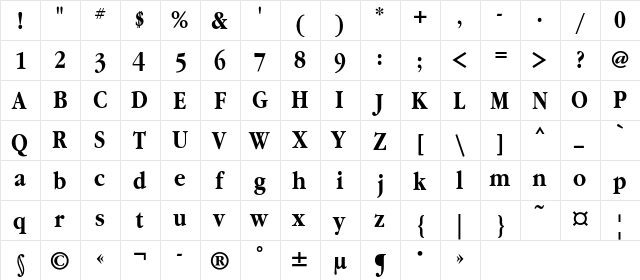
GaramondNarrowC Bold
Design Context for GaramondNarrowC Typeface
GaramondNarrowC is a composed and adaptable typeface that performs quietly and consistently across a wide range of design contexts. The heavy weight commands attention and anchors typographic hierarchies. The condensed width makes it efficient for tight spaces without sacrificing legibility.